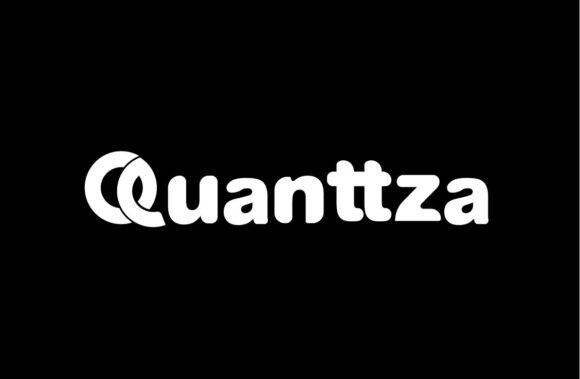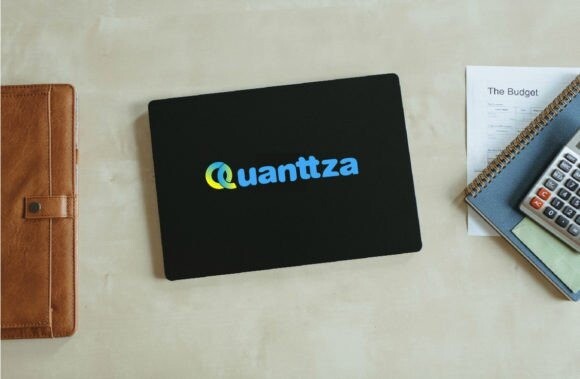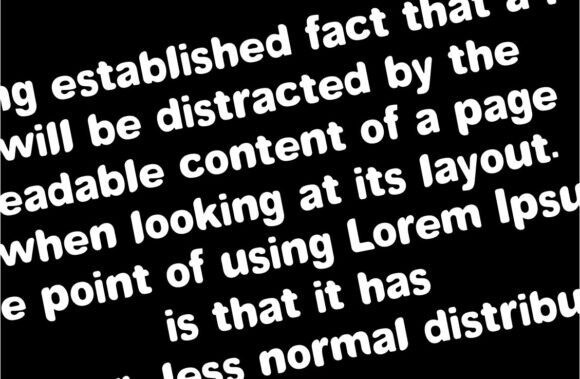
Quanttza Font
Quanttza font is a display font with handwriting style with a little improvisation on uppercase mode, although these fonts are all uppercase fonts. This font also has alternate lowercase letters . This font is perfect for something related to food, t-shirt, book titles, website titles, writing on videos, or anything you can try to gain experience in graphic design needs.